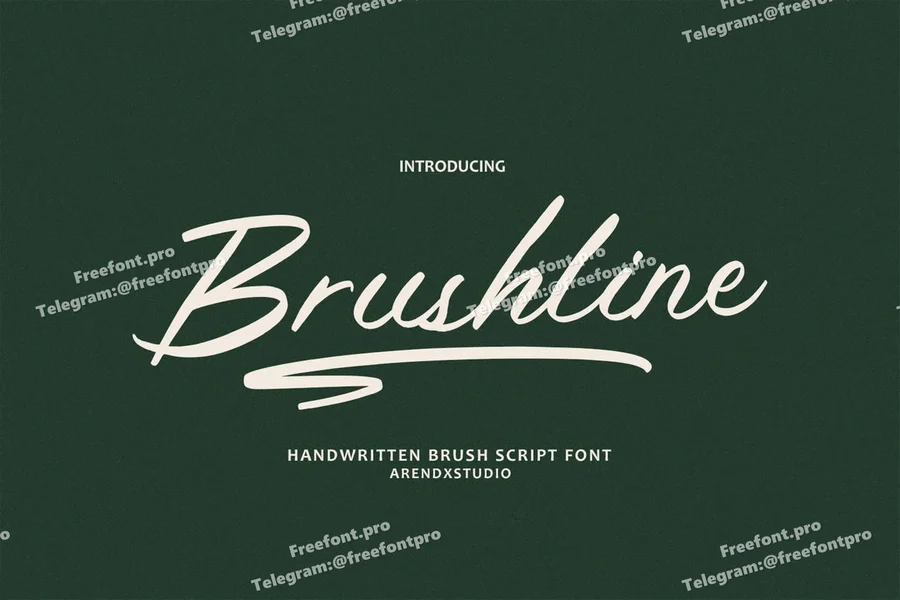
Brushline – Script Font
Brushline – Handwritten Brush Script Font
Description: Brushline is a bold handwritten brush script font that brings dynamic energy to any design. Ideal for logos, packaging, branding, and social media graphics, this font delivers personality and style with every stroke. A must-have for designers who want their work to stand out.